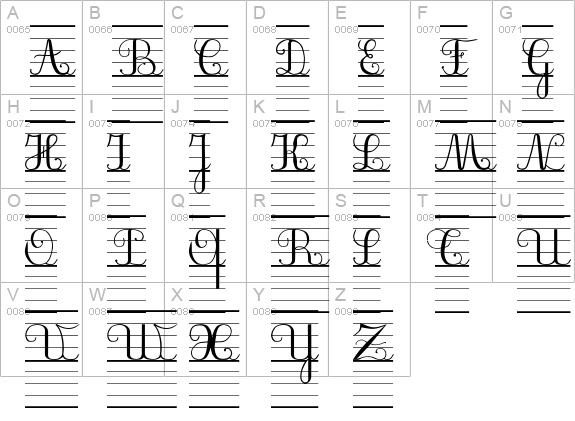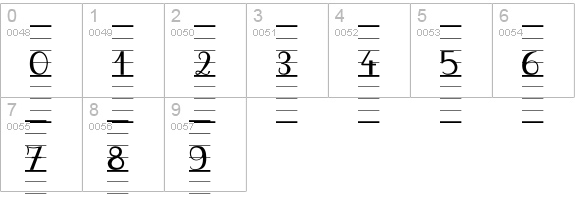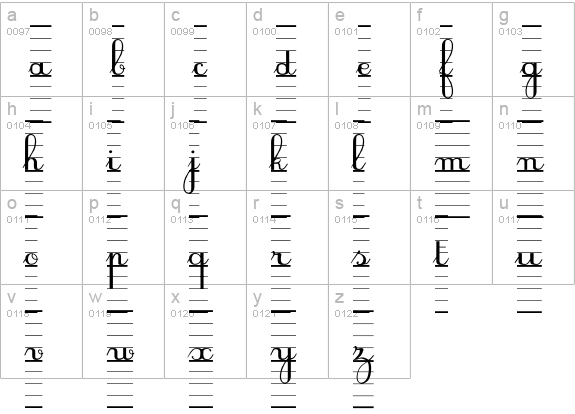
SeyesBDL Font Details
SeyesBDL is an elegant and versatile font that is perfect for a wide range of design projects. With its clean lines and modern aesthetic, this font is sure to make a statement. Whether you are designing a logo, creating a website, or crafting a social media post, SeyesBDL will add a touch of sophistication to your work. One of the greatest advantages of SeyesBDL is that it is free to use. That's right, this stunning font can be downloaded at no cost from FontsMarket.com. This means that you can enhance your designs with a high-quality font without breaking the bank. With SeyesBDL, you have the freedom to experiment and explore your creativity without any financial constraints. The unique and eye-catching features of SeyesBDL make it stand out in a sea of ordinary fonts. Its attention to detail and fine craftsmanship ensure that your designs will leave a lasting impression. The characters are carefully crafted to be both legible and visually appealing, making SeyesBDL suitable for a variety of projects. Whether you are a professional designer or a hobbyist, SeyesBDL is a font that you will want to have in your collection. Its versatility and modern style make it a valuable asset for any creative project. So why wait? Head over to FontsMarket.com and download SeyesBDL for free today. Unleash your creativity and take your designs to the next level with this exceptional font.